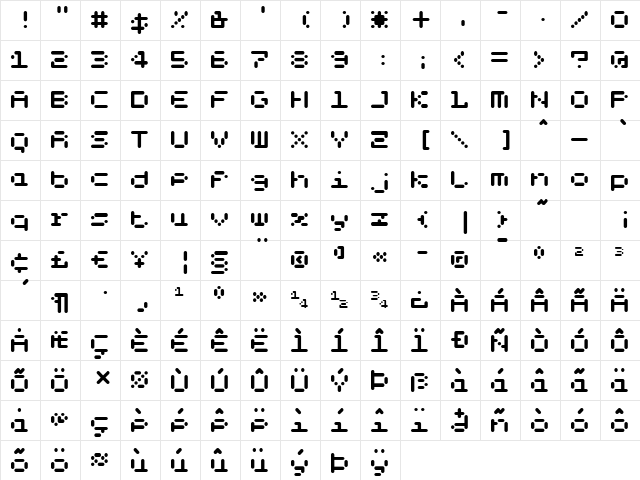
Tribe Mono Regular
Design Context for Tribe Mono Typeface
Tribe Mono uses fixed-width spacing throughout, giving it the structured, systematic character associated with coding environments and technical documentation.